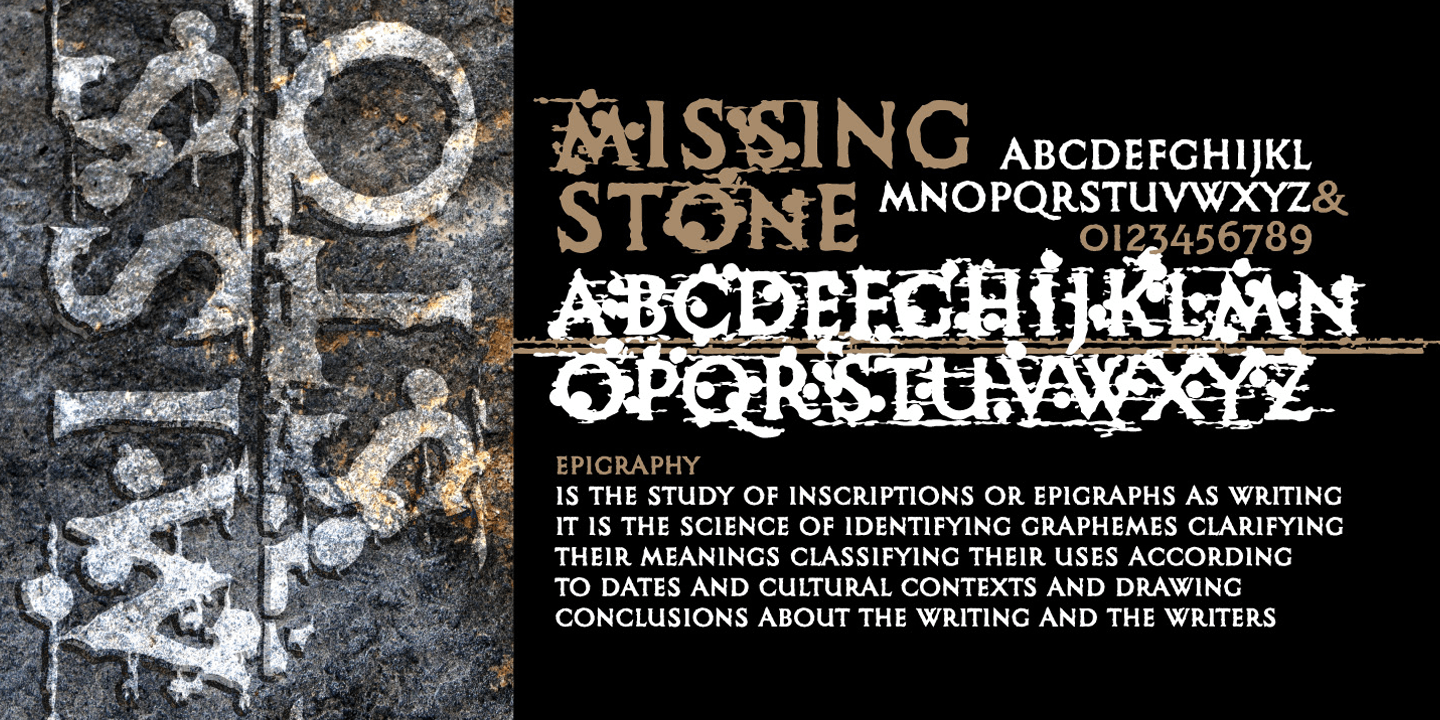
Missing Stone is a grunge font published by PESIC.
Missing Stone features a grunge, rough, lapidary, and antique look inspired by letters carved in stone plates.
Capital glyphs are, although damaged, satisfactorily legible, whereas instead of lowercase letters, capital glyphs are placed, also featuring nearly abstract, hardly legible look, cross cut with rough horizontal lines and dots. The overall visual experience is rough, reminiscent of erosion of stone and disintegration. Capitals are legible and of small size, whereas the second group can be used only in bigger size, whereby rendering an interesting text texture in the course of alternate use.
The font contains all the Latin accented characters used in European languages.